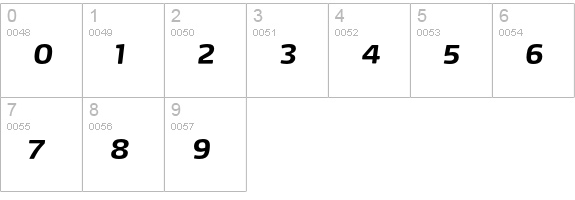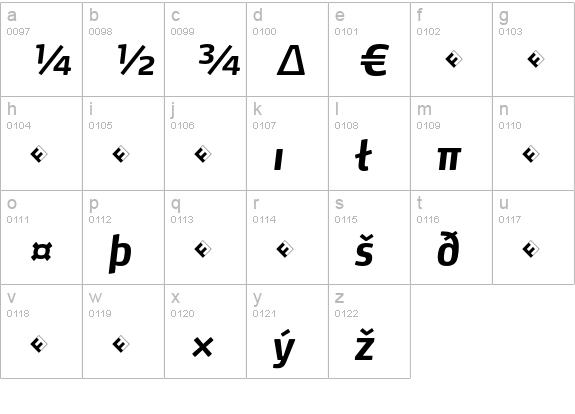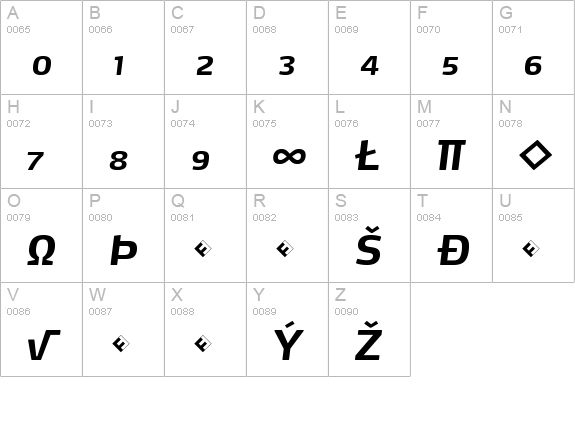
Introducing Max-BoldItalicExpert font, a sleek and stylish typeface designed for those seeking a touch of sophistication and flair in their projects. This font exudes a bold and confident aesthetic, perfect for making a statement in headlines, logos, and branding materials. The italicized design adds a touch of elegance and modernity to your text, making it stand out from the crowd. What sets Max-BoldItalicExpert font apart is its versatility and readability, making it suitable for a wide range of design applications, from digital to print. Whether you're working on a website, a poster, a business card, or any other creative project, this font will elevate your design and leave a lasting impression. Best of all, Max-BoldItalicExpert font is available for free download at FontsMarket.com. So why wait? Add this stunning typeface to your font collection today and unleash your creativity with its bold and italicized charm.